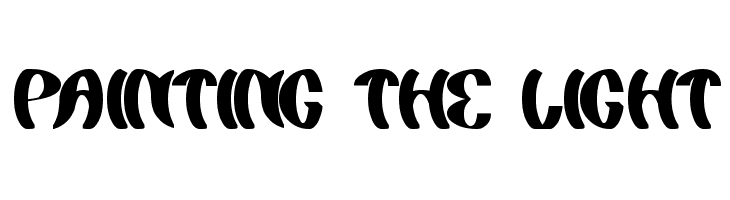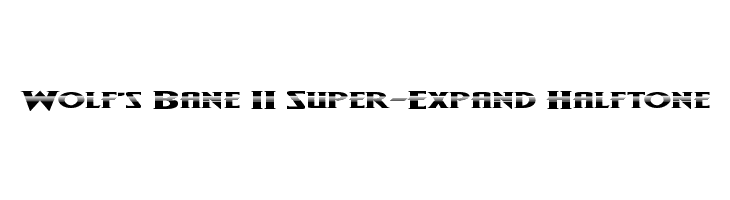
A bold, decorative font with unique curves and artistic flair.
A decorative font with bold outlines and playful heart accents.
A modern, decorative font with geometric and bold elements.
A playful, modern font with rounded edges and consistent stroke width.
A bold, italicized, and highly decorative font with an abstract, cut-out appearance.
A whimsical, vine-like font with an organic, hand-drawn style.
A modern, geometric font with characters enclosed in circles, offering a futuristic look.
A bold, playful font with a three-dimensional shadow effect.
A bold, dynamic font with a halftone effect and expansive characters.
A bold, geometric font with a futuristic and angular design.